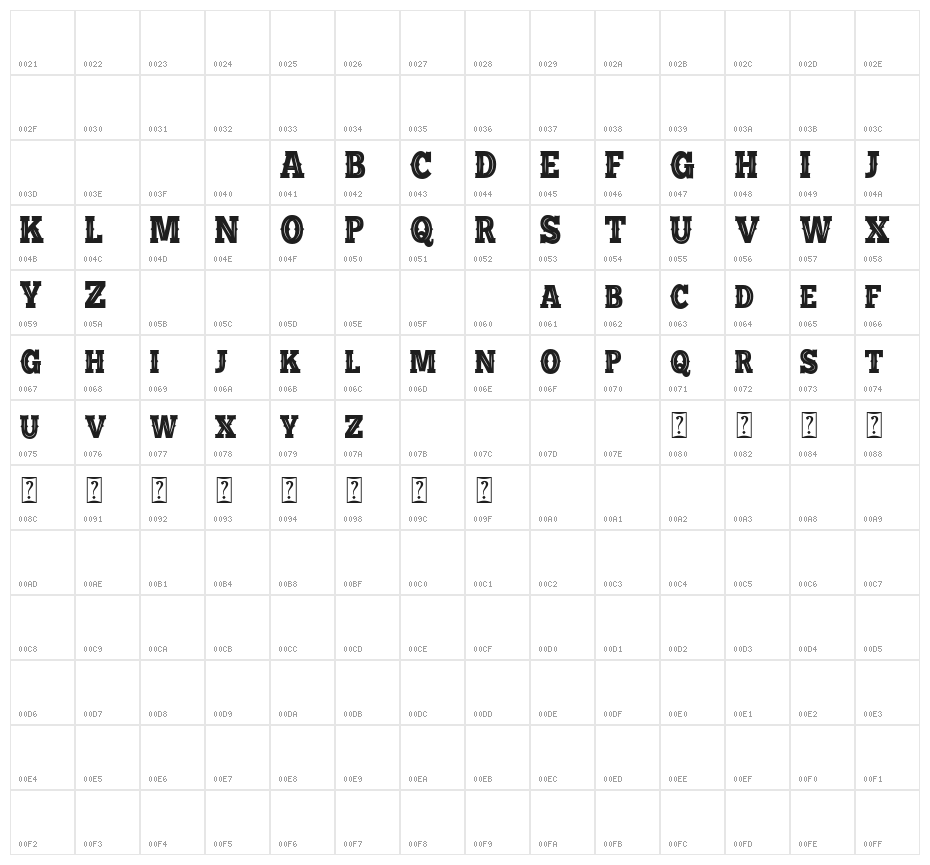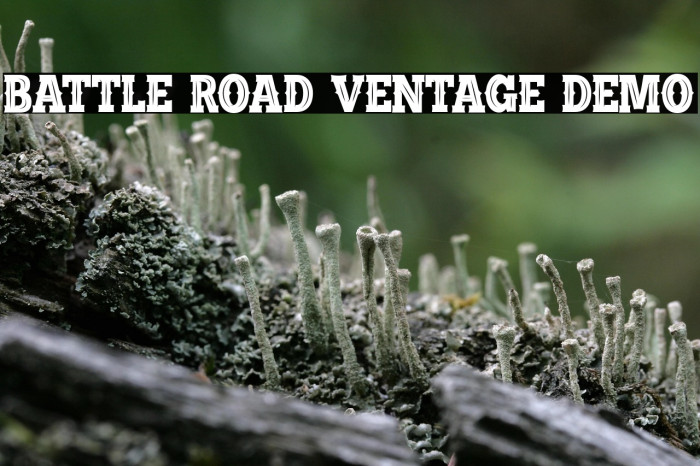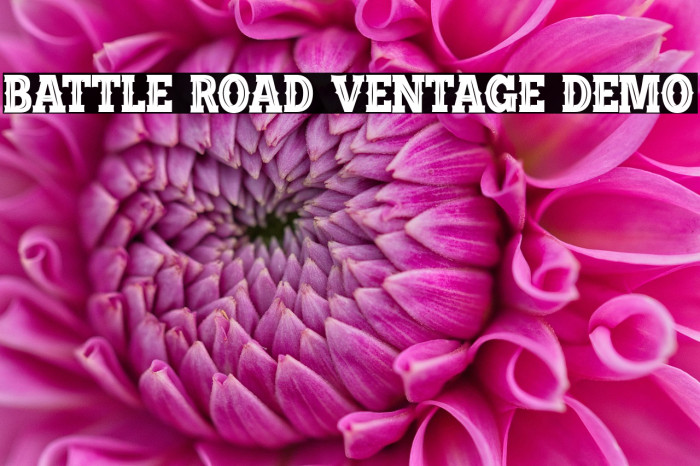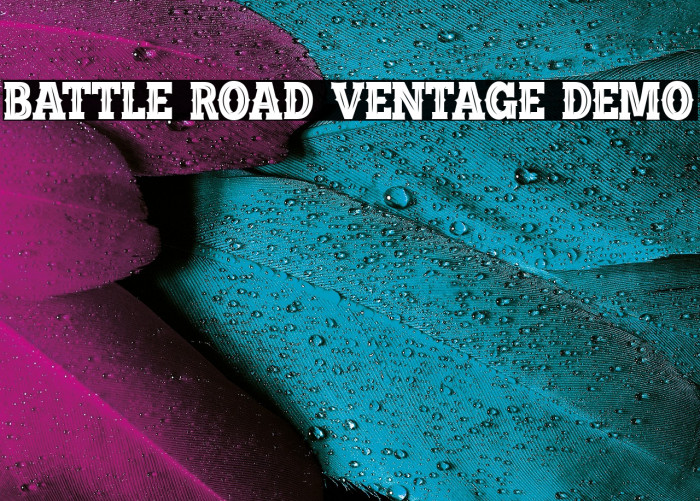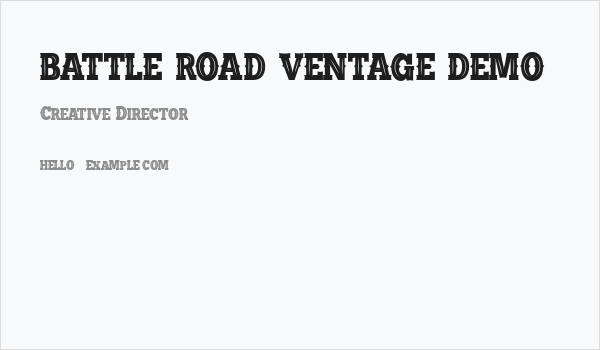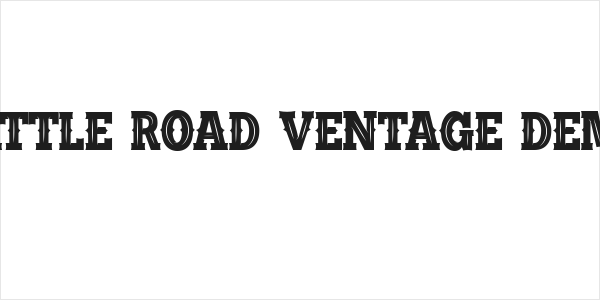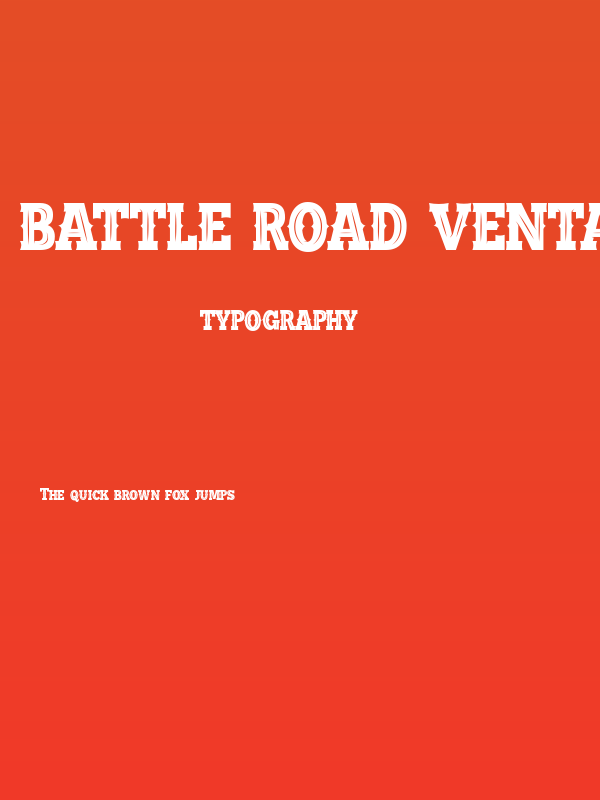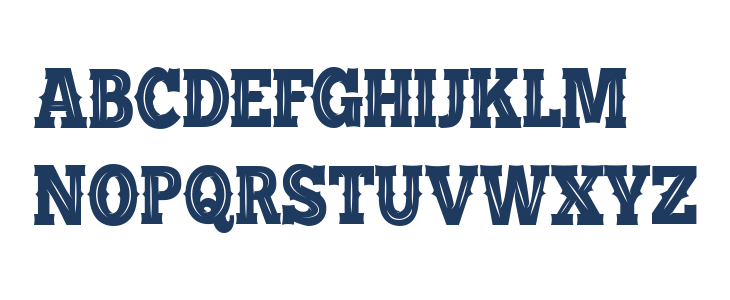
BATTLE ROAD VENTAGE DEMO Font
BATTLE ROAD VENTAGE DEMO Description
This font features a bold and striking design with a vintage flair, characterized by its thick, blocky letters and decorative elements. The uppercase letters are designed with a shadow effect that adds depth and dimension, making them stand out prominently. The font's style is reminiscent of old-school signage or posters, with a rugged and adventurous feel. Its boldness and unique design make it suitable for projects that require a strong visual impact.
| Proposed Projects | Ideal for vintage-themed posters, signage, branding, and headlines that require a strong, impactful presence. |